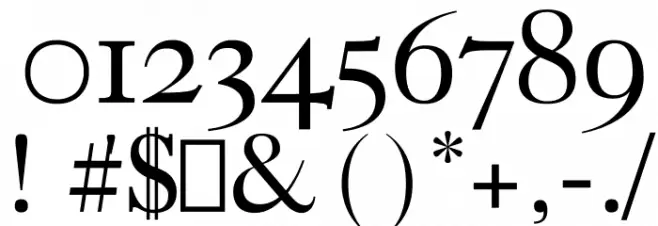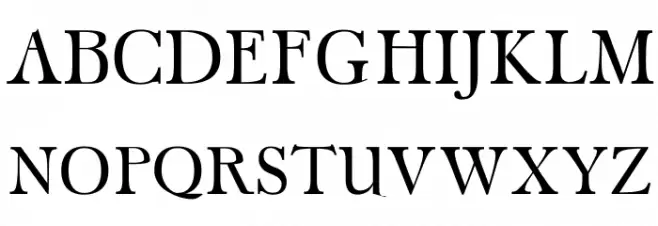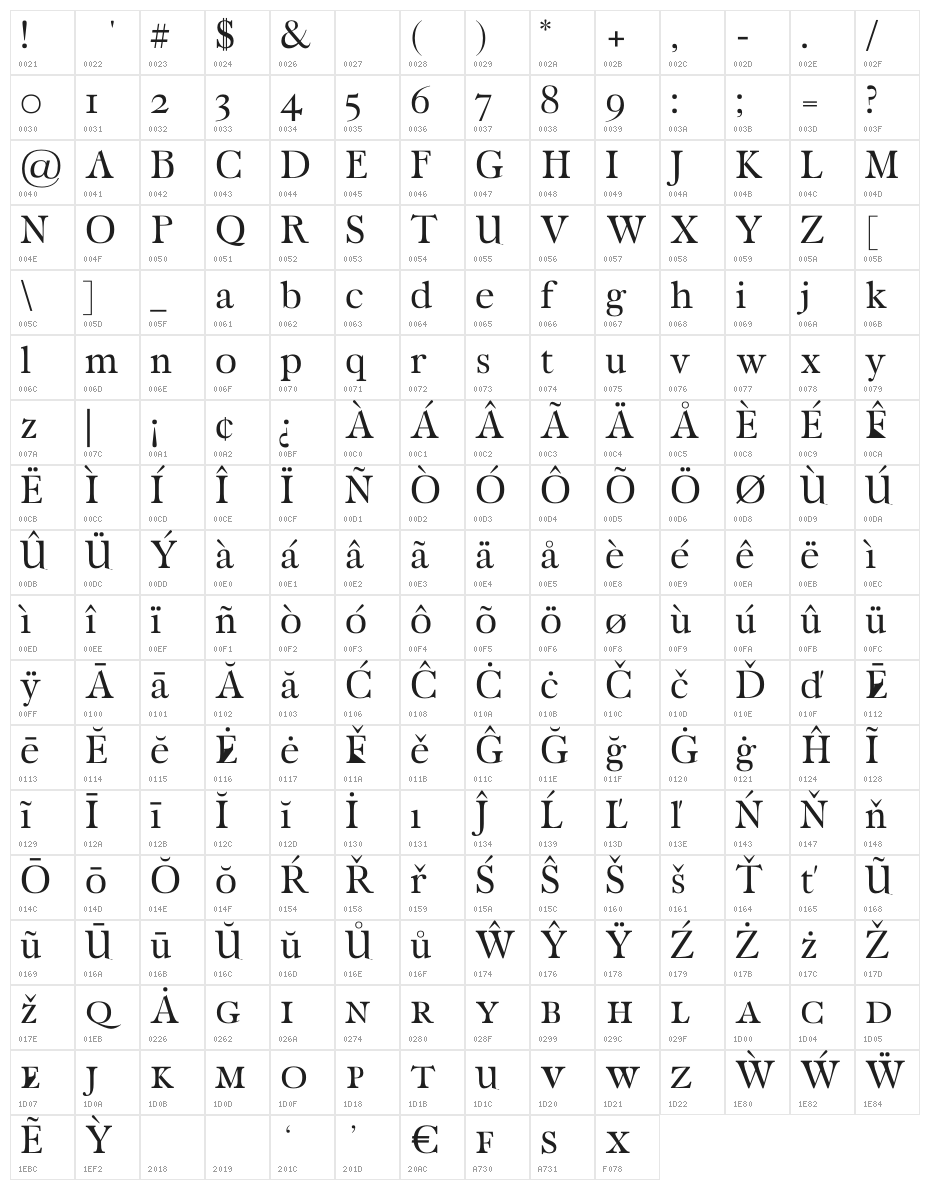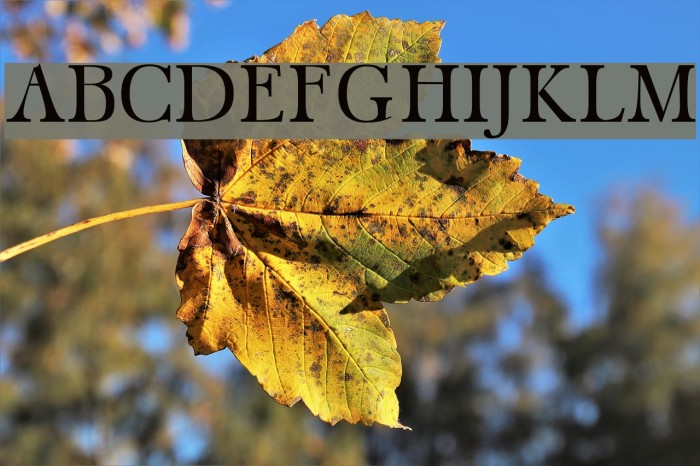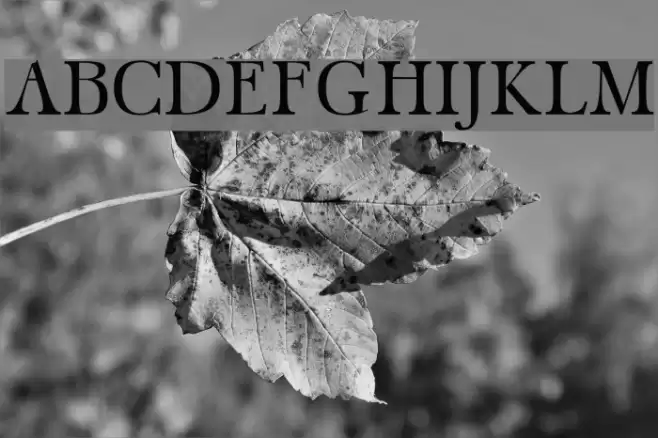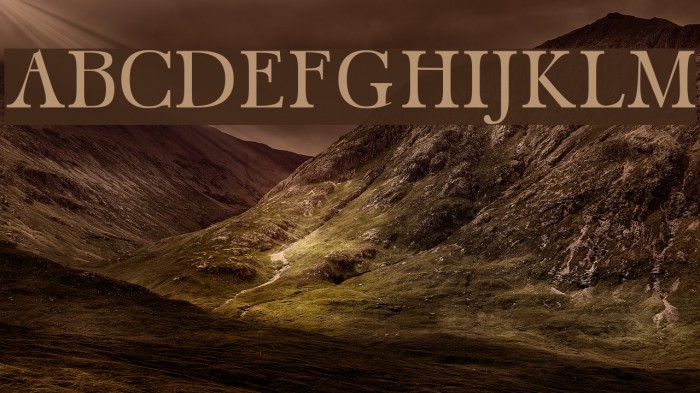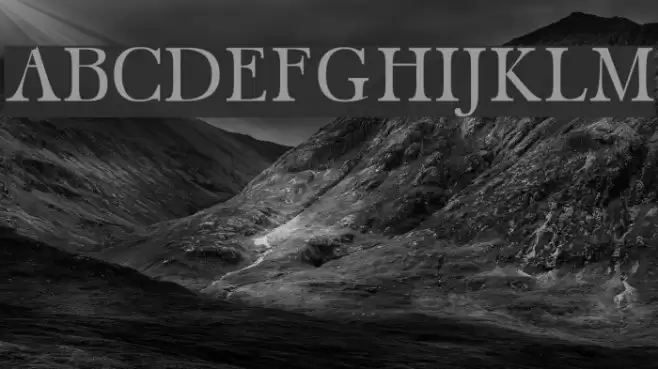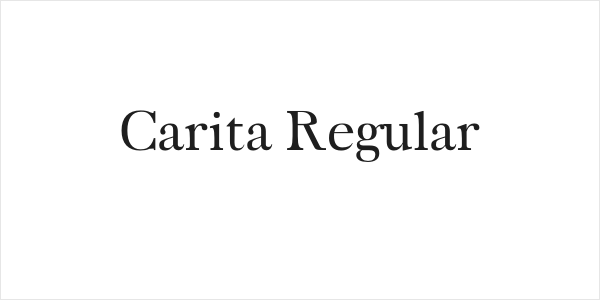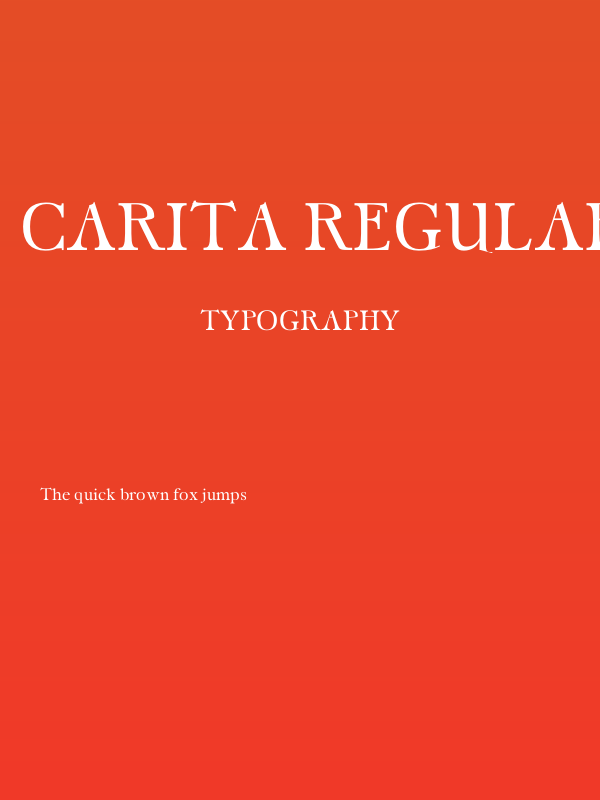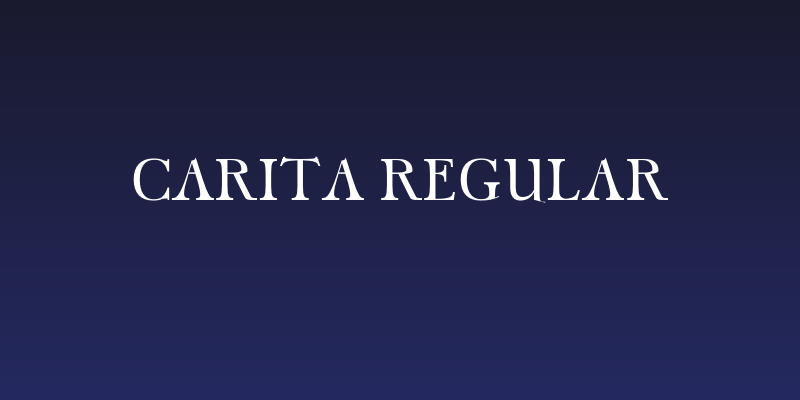
Carita Regular Font
Carita Regular Description
This typeface features a classic serif design with elegant curves and a refined structure. The uppercase letters exhibit a traditional serif style with slight flares at the ends, providing a sense of sophistication and formality. The lowercase letters maintain a consistent style, with smooth transitions and a balanced appearance. Numerals are clear and distinct, making them easily readable. The special characters are well-integrated, maintaining the overall aesthetic of the typeface. This font is versatile, suitable for both digital and print media, offering a timeless appeal.